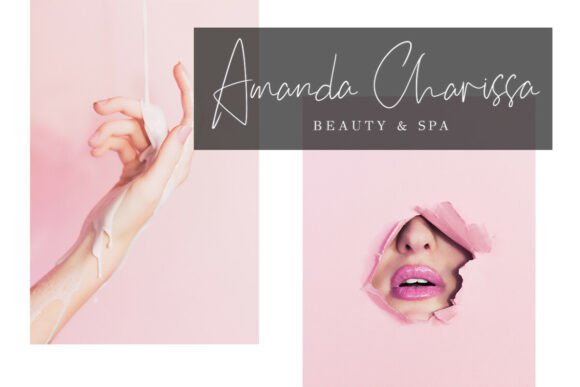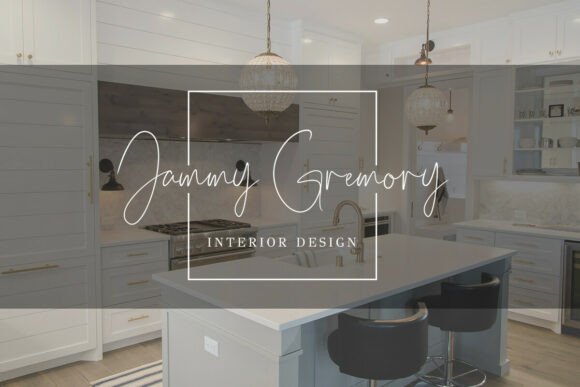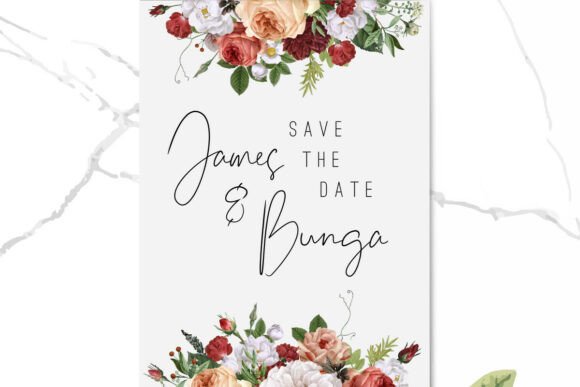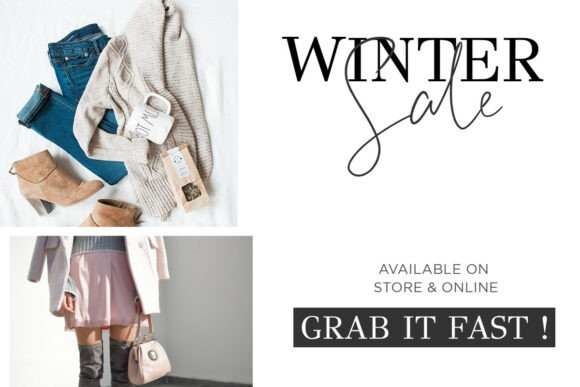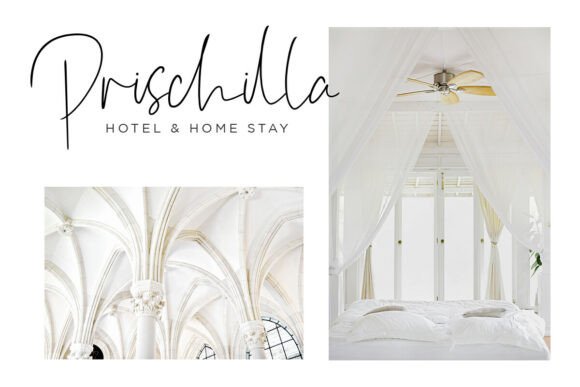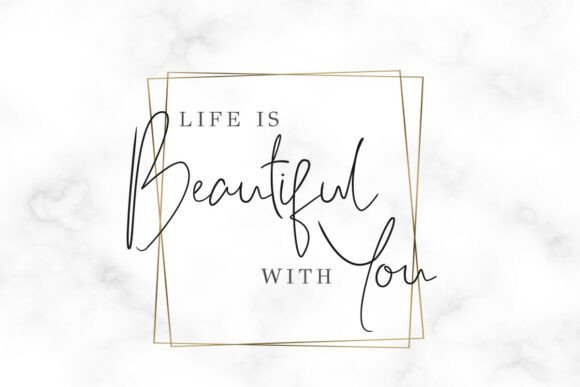
Introducing Charllesh Font: Elevate Your Designs with Elegance and Sophistication
In the world of typography, a signature script font can make all the difference in adding a touch of personality and elegance to your designs. Charllesh, a beautifully refined signature script font, is here to revolutionize the way you approach your creative projects. With its flowing, handwritten style and delicate curves, Charllesh captures the essence of a personal signature — stylish, smooth, and effortlessly classy.
The Essence of Charllesh Font
Charllesh boasts delicate, flowing lines and a natural varying baseline that creates a sense of movement and luxury. This unique characteristic ensures that your text feels uniquely personal and deeply sophisticated, making it perfect for designs that require a touch of refinement. Whether you’re working on sophisticated branding, upscale product packaging, luxurious wedding stationery, or watermarking professional photography, Charllesh is the go-to choice for designers who want to convey a sense of genuineness and quality.
Charllesh is particularly effective for any design aiming for a chic, minimalist aesthetic where quality and personal touch are paramount. As a designer or crafter, you understand the importance of using high-quality fonts that can elevate your work and set it apart from the rest. With Charllesh, you’re not just adding text to your design; you’re imparting a distinct, memorable signature that will leave a lasting impression on your audience.
Key Features of Charllesh Font
- Flowing, handwritten style: Charllesh features a beautiful, flowing script that mimics the natural movement of handwriting.
- Delicate curves: The font’s delicate curves and subtle connections create a sense of elegance and sophistication.
- Varying baseline: Charllesh’s natural varying baseline adds a touch of movement and luxury to your text.
- Effortlessly classy: The font’s smooth, flowing lines ensure that your text feels uniquely personal and deeply sophisticated.
Use Cases for Charllesh Font
Charllesh is an incredibly versatile font that can be used in a variety of design projects, including:
- Sophisticated branding: Use Charllesh to create a luxurious and memorable brand identity.
- Upscale product packaging: Add a touch of elegance to your product packaging with Charllesh.
- Luxurious wedding stationery: Make your wedding stationery truly special with Charllesh’s beautiful, flowing script.
- Watermarking professional photography: Use Charllesh to add a subtle, sophisticated watermark to your professional photographs.
Why Choose Charllesh Font?
By choosing Charllesh, you’re opting for a font that is more than just a collection of letters — it’s a statement piece that can elevate your designs and set you apart from the competition. With Charllesh, you can:
- Add a personal touch: Charllesh’s unique, handwritten style ensures that your text feels personal and genuine.
- Convey sophistication and elegance: The font’s delicate curves and flowing lines create a sense of luxury and refinement.
- Create a lasting impression: Charllesh’s memorable signature ensures that your designs will leave a lasting impression on your audience.
In conclusion, Charllesh is a beautifully refined signature script font that can add a touch of elegance and sophistication to any design. With its flowing, handwritten style and delicate curves, Charllesh is the perfect choice for designers and crafters who want to convey a sense of genuineness and quality. Whether you’re working on sophisticated branding, upscale product packaging, luxurious wedding stationery, or watermarking professional photography, Charllesh is the go-to font for creating stunning, high-quality designs.